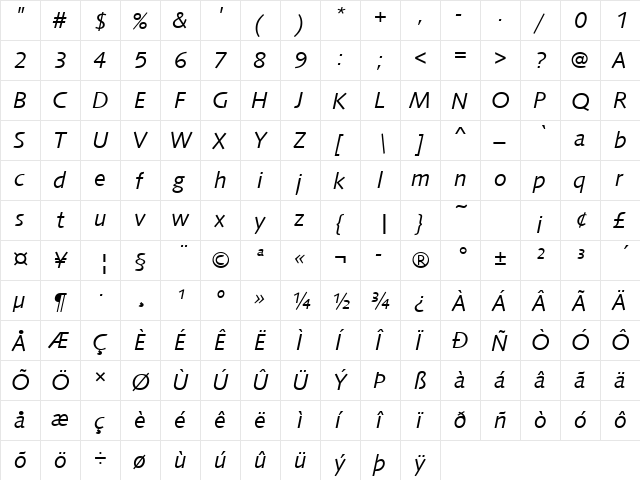
SyntaxD Italic
Design Context for SyntaxD Typeface
SyntaxD offers clean, dependable letterforms without strong stylistic allegiance, making it a practical choice for designers who need flexibility. The slanted form adds forward momentum and visual energy.
Pro Tip: Try SyntaxD for annotation and caption copy alongside an upright companion — the contrast in angle creates a dynamic but ordered typographic system.